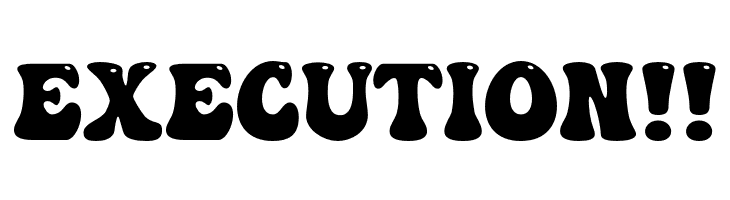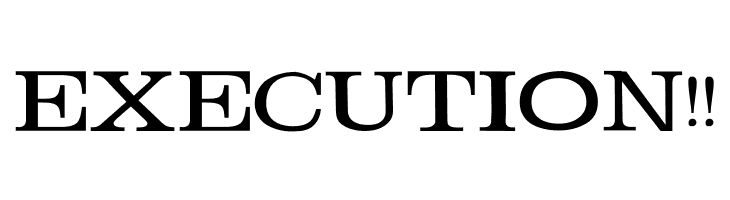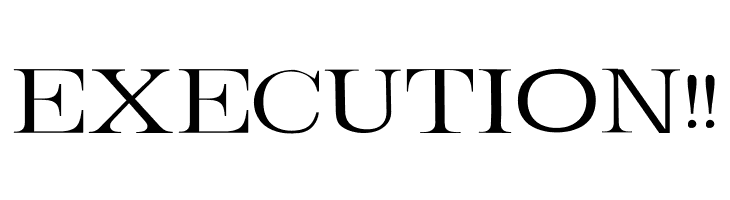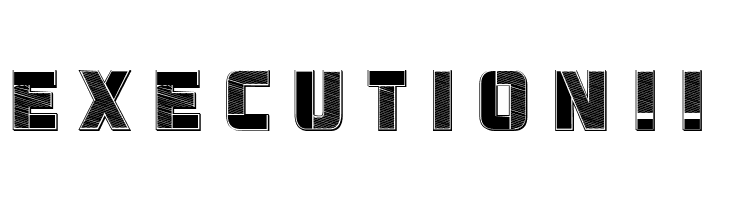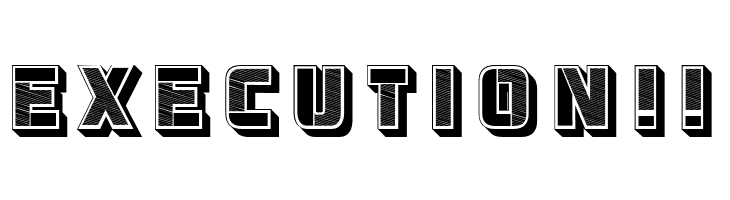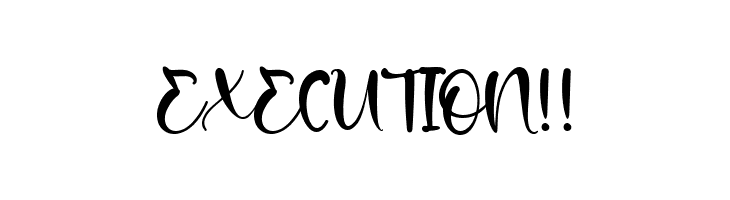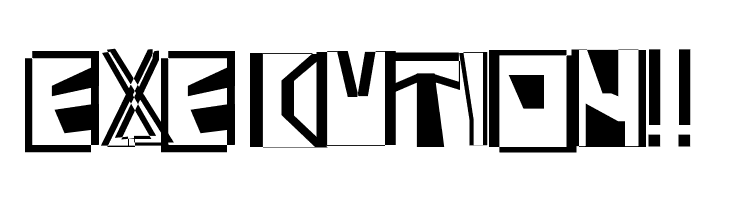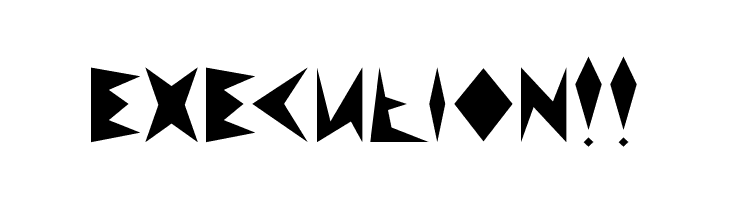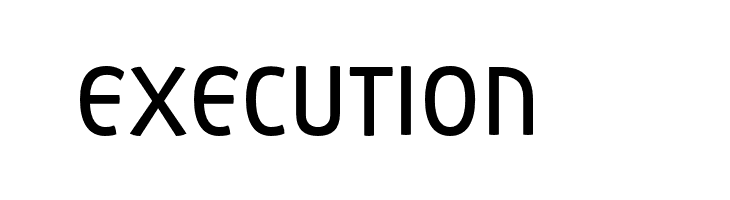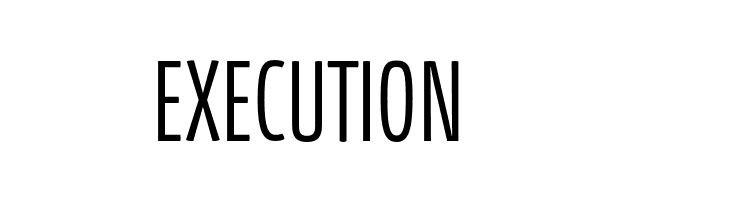
A hand-drawn, sketch-like font with thin, irregular strokes for a casual, artistic feel.
A playful and elegant cursive font with a handwritten feel.
A lively and expressive script font with elegant, flowing cursive letters.
A bold, ultra-condensed font with a modern and impactful style.
A modern, ultra-condensed sans-serif font with tight spacing and uniform strokes.
A sleek, ultra-condensed font with a modern, minimalist design.
A bold, ultra-condensed font with high contrast and a modern, geometric style.
A sleek, ultra-condensed, and thin font with a modern aesthetic.
A bold, modern unicase font with geometric shapes and consistent stroke widths.
A modern unicase font with rounded, geometric shapes and consistent stroke width.
A classic serif font with high contrast and elegant, sharp serifs.
A high-contrast serif font with elegant, sharp serifs and a classic style.
A bold, classic serif font with strong, elegant strokes.
A bold, classic serif font with high contrast and elegant details.
A bold, distressed font with a grunge, vintage aesthetic.
A bold, geometric font with a textured, industrial style.
A bold, three-dimensional block font with textured fill and shadow effects.
A bold, retro font with a playful, groovy style and rounded, exaggerated curves.
A bold, retro-inspired font with playful, rounded characters.
A bold, maze-like font with rounded edges and a futuristic, abstract style.
An abstract, geometric font with sharp angles and bold shapes.
A modern, linear font with a digital, geometric design.
A modern, abstract font with characters formed by vertical lines.
A bold, geometric font with an abstract, digital aesthetic.
A geometric, pixelated font with a futuristic and digital aesthetic.
Ornamental dingbat set with abstract and animal motifs.
Abstract, collage-like font using cutout imagery for each character.
A decorative dingbat set featuring abstract, geometric, and pictorial icons.
A decorative set of abstract, face-like symbols with bold, intricate designs.
A collection of abstract, artistic symbols resembling faces, with unique and intricate designs.
Abstract, fragmented silhouettes form each character in a bold, decorative style.
Whimsical, abstract decorative font with playful loops and dots.
Abstract, collage-style font with high visual complexity.
Ornamental dingbat set featuring abstract and decorative motifs.